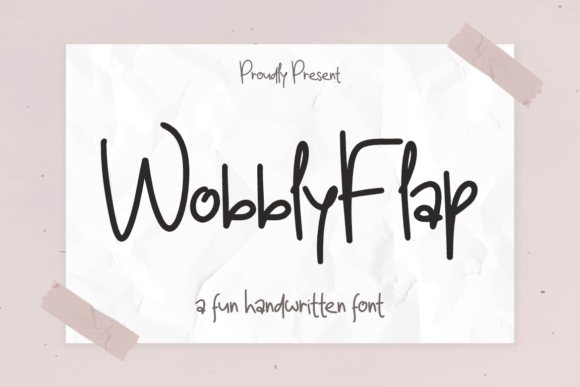
Wobbly Flap Font: The Epitome of Playful Elegance
In the realm of digital fonts, there exists a myriad of styles and categories, each designed to evoke specific emotions and aesthetics. Among these, the Wobbly Flap Font stands out as a beacon of playful elegance, bringing a unique blend of spontaneity and charm to the table. This fun handwritten font is not just a typeface; it’s an experience, a statement that can elevate a wide array of creative projects from mundane to mesmerizing.
Introducing WobblyFlap
WobblyFlap, at its core, is a romantic script font with display qualities that make it perfect for projects where making an impression is key. Its fluid, irregular strokes are reminiscent of a love letter penned in haste, capturing the essence of human imperfection in a digital age. This font is not about precision; it’s about personality, bringing a personal touch to your designs that audiences can’t help but respond to.
Ideal for a Variety of Projects
The versatility of WobblyFlap is one of its most compelling features. It’s a font that can seamlessly transition across different mediums and project types. Here are some ideas where WobblyFlap can truly shine:
- Logos and Branding Materials: Give your brand a bespoke look with a logo that tells a story.
- Invitation Cards: Whether it’s a wedding, a birthday, or a baby shower, WobblyFlap adds that extra touch of elegance and whimsy.
- Girly Shirt Designs: Perfect for fashion brands looking to add a playful yet feminine touch to their apparel.
- Fun Monoline Illustrations: Combine WobblyFlap with simple illustrations for a look that’s both modern and engaging.
- Fruit-Themed Packaging: Add a pop of personality to your product packaging.
- Posters and Business Titles: Make your business stand out with eye-catching posters and titles.
- Greeting Cards: From thank you cards to Christmas greetings, WobblyFlap brings warmth and sincerity.
- Movie Titles and Stickers: Give your movie titles or stickers a unique look that’s sure to grab attention.
- Book Covers and Magazine Layouts: Stand out in a crowded market with a book cover or magazine layout that’s both captivating and elegant.
The Unique Character of WobblyFlap
WobblyFlap boasts a pen-like spidol texture, which gives it an organic, urban feel. This texture evokes the vibe of urban sketches and cool city vibes, making it perfect for projects that aim to resonate with a younger, more vibrant audience. The irregularity of its strokes and the fluidity of its design contribute to its charm, making each word and sentence a piece of art.
Playful Elegance
The term “playful elegance” might seem oxymoronic at first, but WobblyFlap embodies this concept beautifully. It’s elegant in its romantic script and the way it flows across the page, yet playful in its irregularities and the whimsical vibe it gives off. This balance is what makes WobblyFlap so appealing and versatile.
Spontaneity and Charm
At the heart of WobblyFlap is a sense of spontaneity and charm. It’s as if the words are being written on the fly, with each letter connecting to the next in a natural, almost careless manner. This spontaneity is what gives WobblyFlap its unique allure, making it perfect for projects where you want to convey a sense of personality and authenticity.
Why Choose WobblyFlap?
In a digital world where fonts are plentiful and often look similar, WobblyFlap offers a breath of fresh air. Here are a few reasons why WobblyFlap should be your go-to font for your next project:
- Unique Aesthetic: WobblyFlap offers a unique blend of elegance and playfulness that’s hard to find elsewhere.
- Versatility: Whether it’s a logo, a poster, or a greeting card, WobblyFlap can adapt to any project.
- Emotional Connection: The personal touch WobblyFlap brings to your designs can help create an emotional connection with your audience.
- Memorability: Projects designed with WobblyFlap are more likely to be remembered, thanks to their distinctive look and feel.
Embracing Creativity with WobblyFlap
WobblyFlap is more than just a font; it’s a creative tool that can transform your projects from ordinary to extraordinary. Its playful elegance, spontaneity, and charm make it the perfect choice for designers looking to add a personal touch to their work. Whether you’re a seasoned designer or a DIY enthusiast, WobblyFlap invites you to explore new possibilities in typography and design.
In conclusion, if you’re looking for a font that combines the elegance of a romantic script with the playfulness of a handwritten note, WobblyFlap is your best bet. It’s time to make your projects truly unforgettable with the unique allure of WobblyFlap.